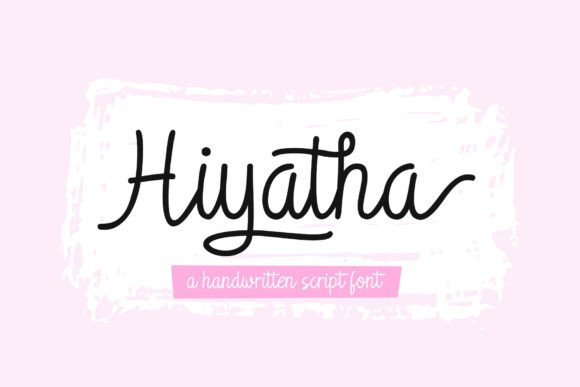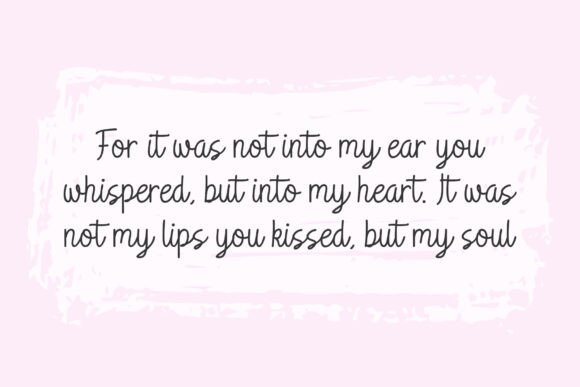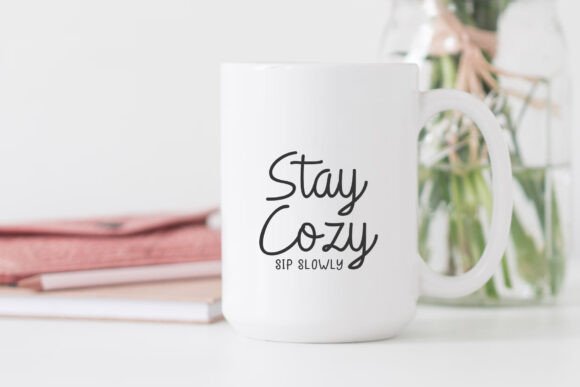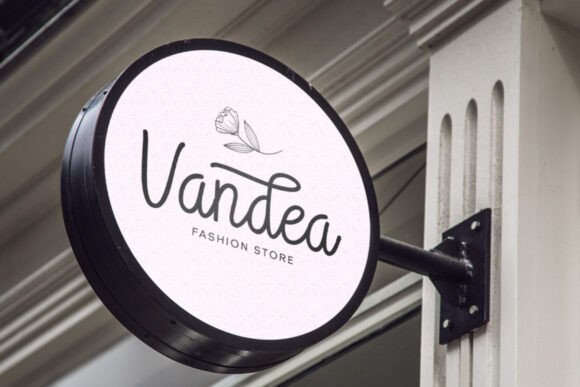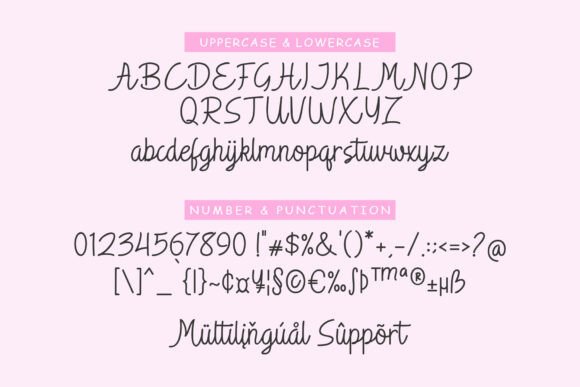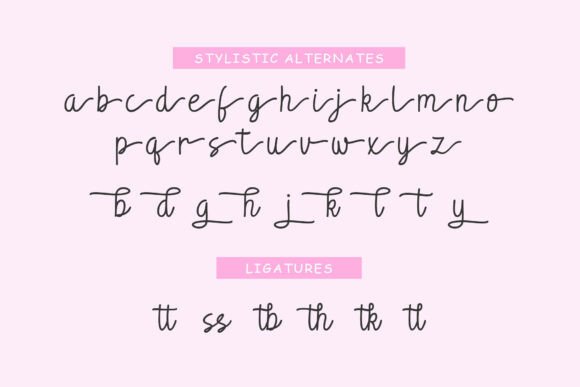
Introduction to Hiyatha Font Font
Fonts play a crucial role in design, and the Hiyatha Font font is a typeface that brings both character and versatility to any project. Whether you’re working on a branding project, a website, or a print design, the Hiyatha Font font offers a unique style that can elevate your work.
Imbued with elegance and simplicity, Hiyatha Script is an exquisitely crafted handwritten font styled in monoline technique.
It seamlessly enhances any design project you might haveβfrom logos and branding elements to farmhouse-themed concepts Ideal for a wide variety of purposes, Hiyatha Script makes a stunning addition to SVG files, lends professional finish to Canva or GoodNotes projects and is simply perfect for sticker, mug designs and beyond.
Key Features of Hiyatha Font Font
Why Choose Hiyatha Font Font?
The Hiyatha Font font is more than just a typeface β it’s a design tool that helps you communicate your message with style and clarity. Its unique character set and versatile design make it suitable for a wide range of applications, from elegant invitations to bold headlines.
With its carefully crafted letterforms and balanced proportions, the Hiyatha Font font ensures readability and visual appeal across all mediums.
What makes Hiyatha Font font special?
The Hiyatha Font font stands out with its unique design, exceptional readability, and versatility across various design applications.